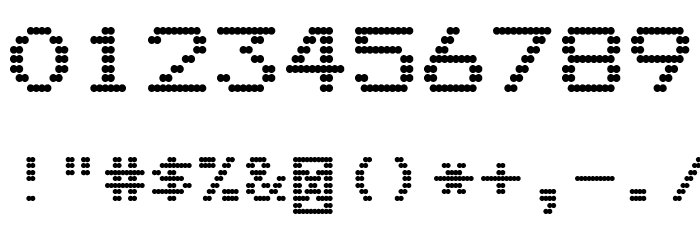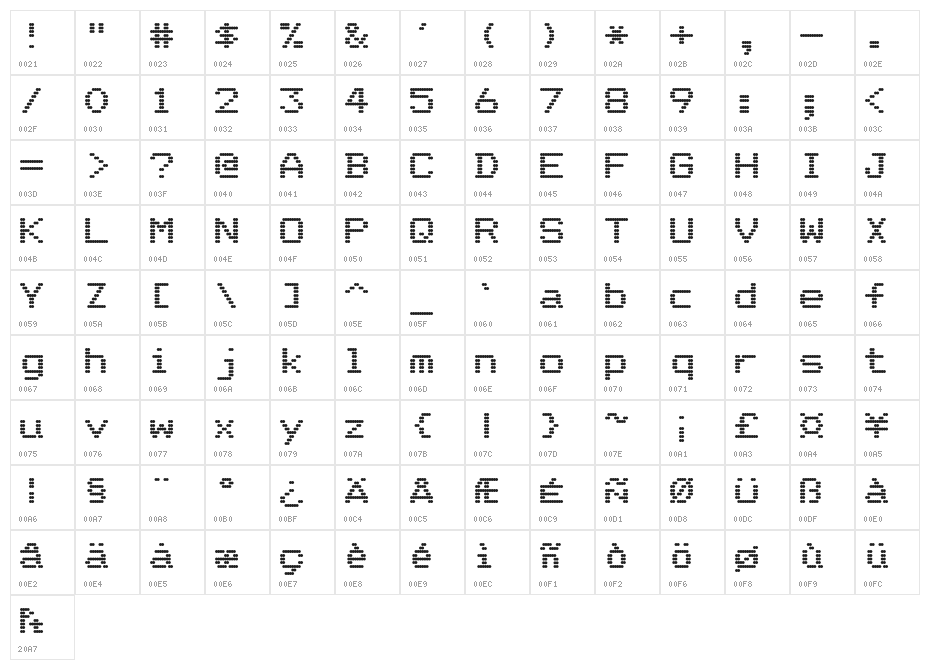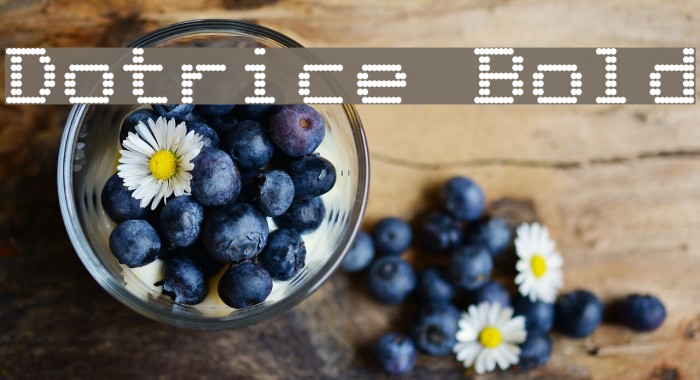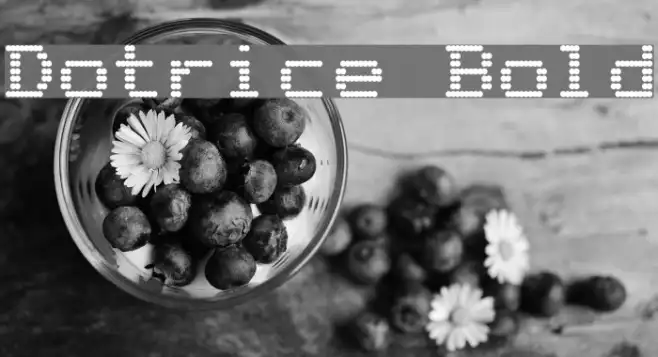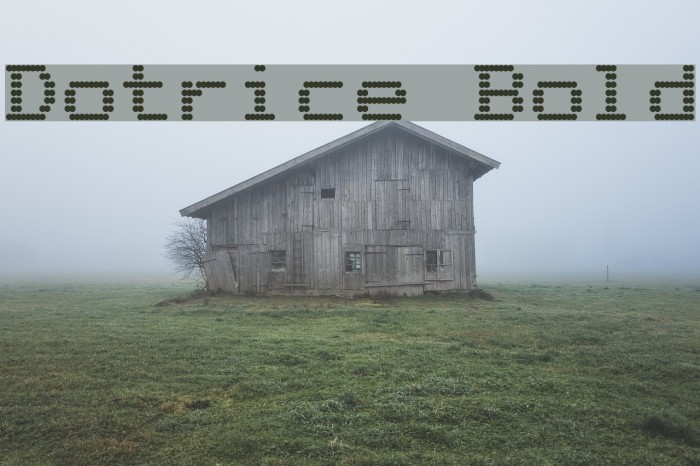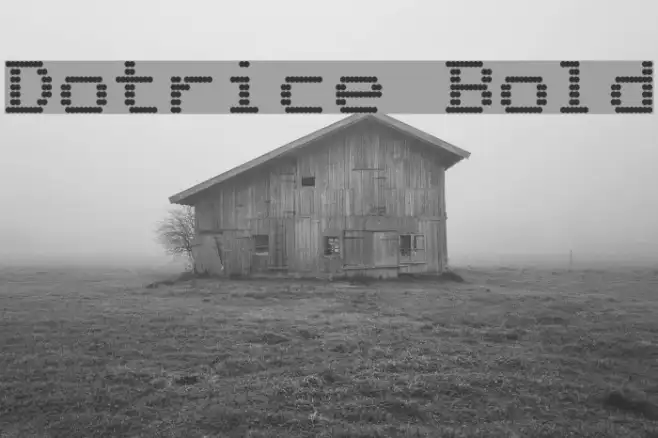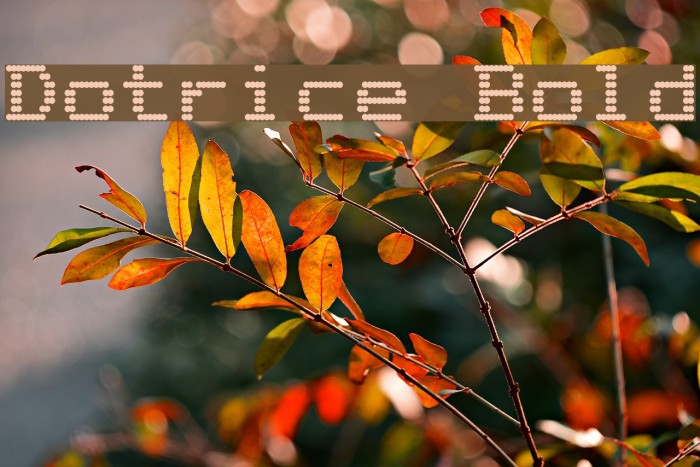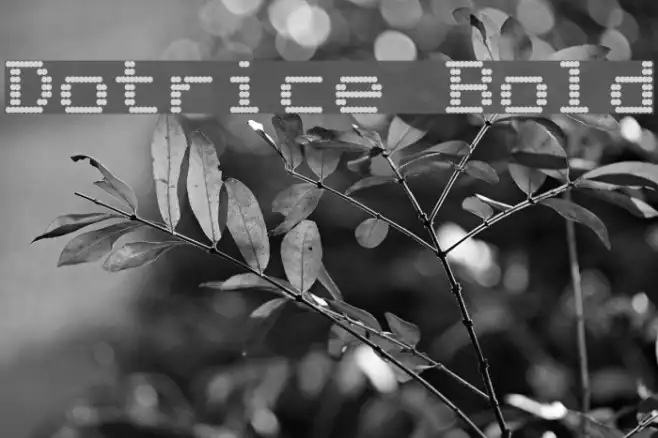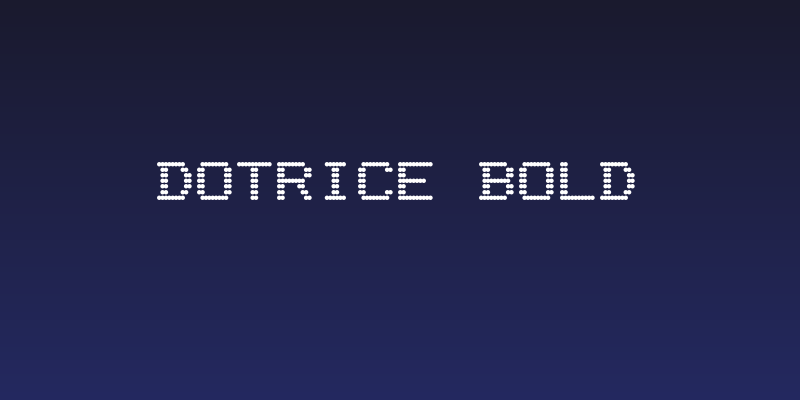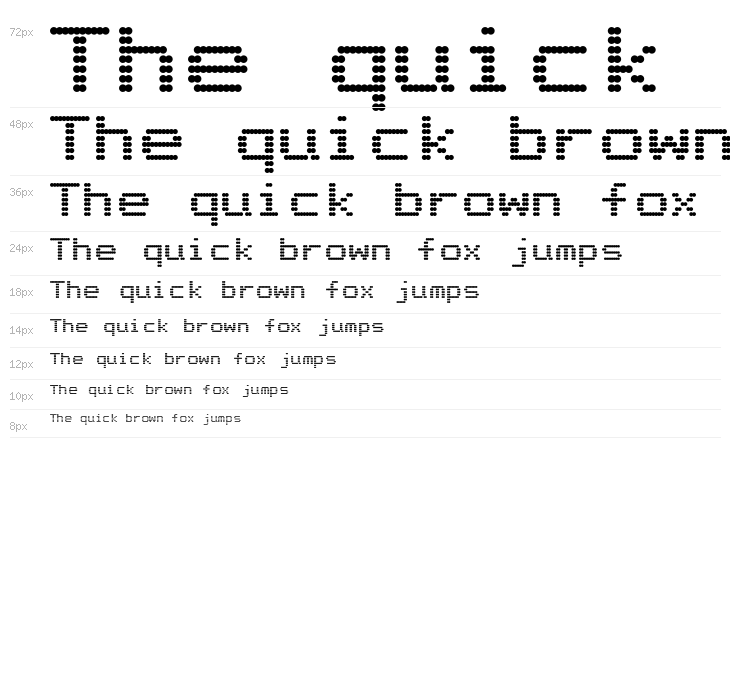
Dotrice Bold Font
Dotrice Bold Description
This font features a unique dot matrix style, where each character is composed of a series of evenly spaced dots. The design is bold and geometric, creating a digital or retro-tech aesthetic reminiscent of old LED displays or dot matrix printers. The uppercase and lowercase letters maintain a consistent structure, with clear differentiation between each character. Numbers and special characters follow the same dot pattern, ensuring uniformity across the font. This style is both eye-catching and legible, making it suitable for various creative applications.
| Proposed Projects | Ideal for digital displays, retro-themed designs, tech branding, and creative posters. |